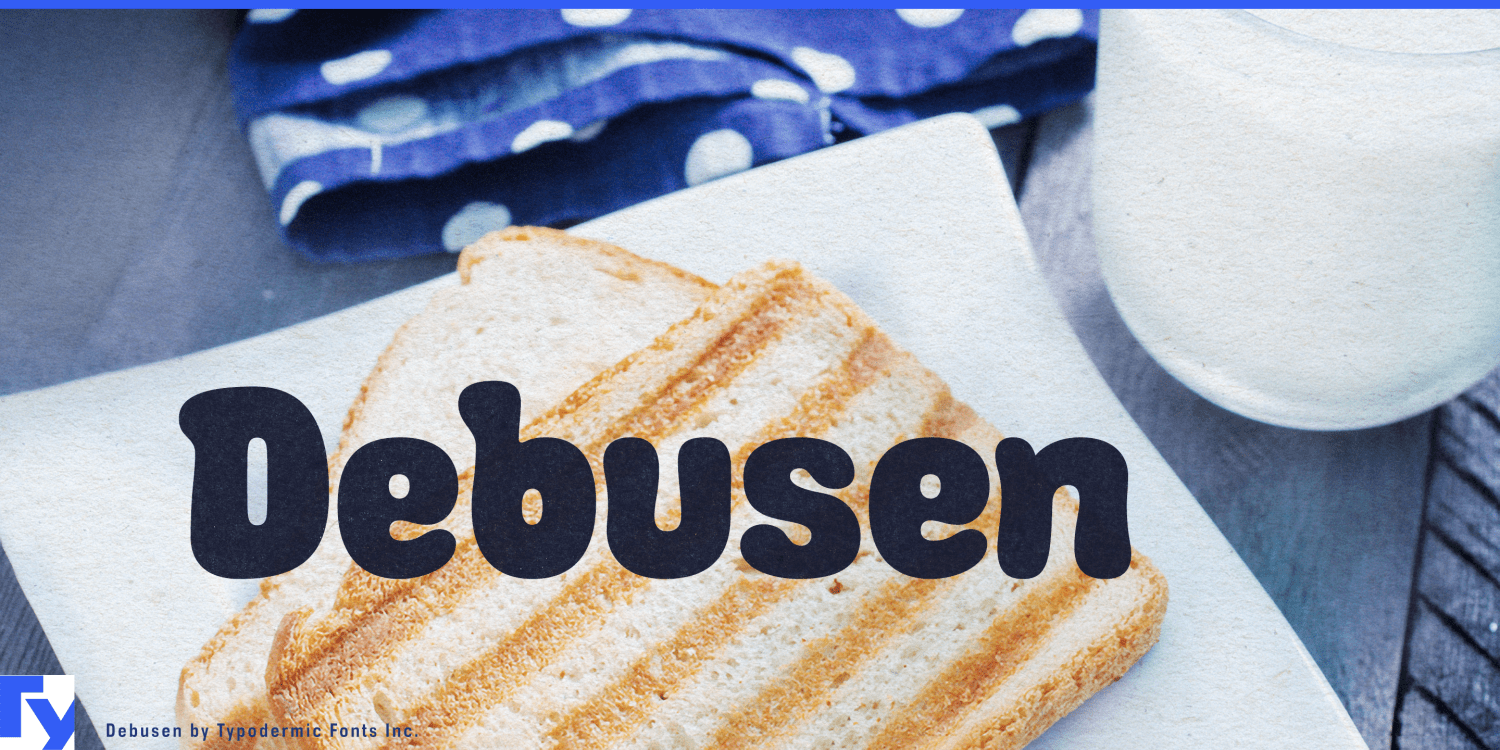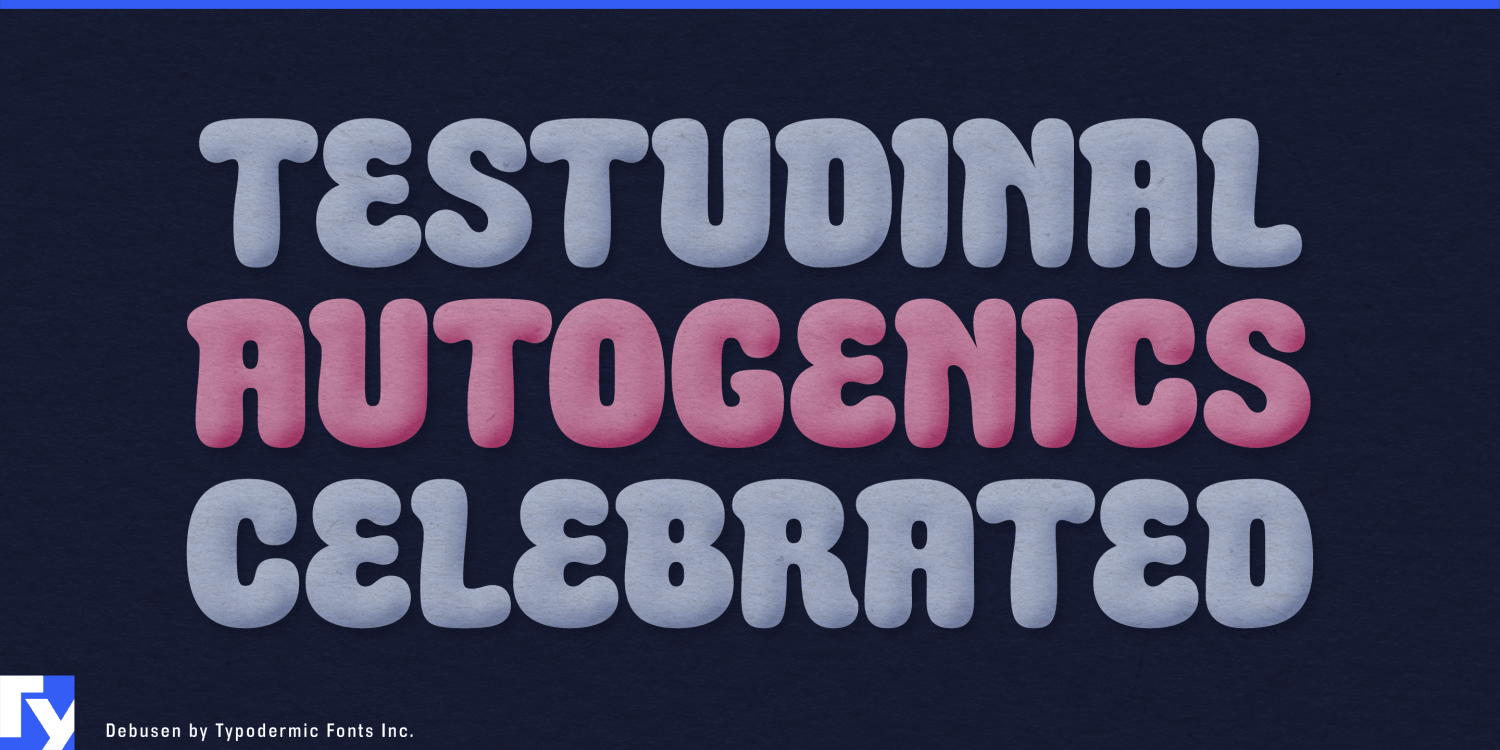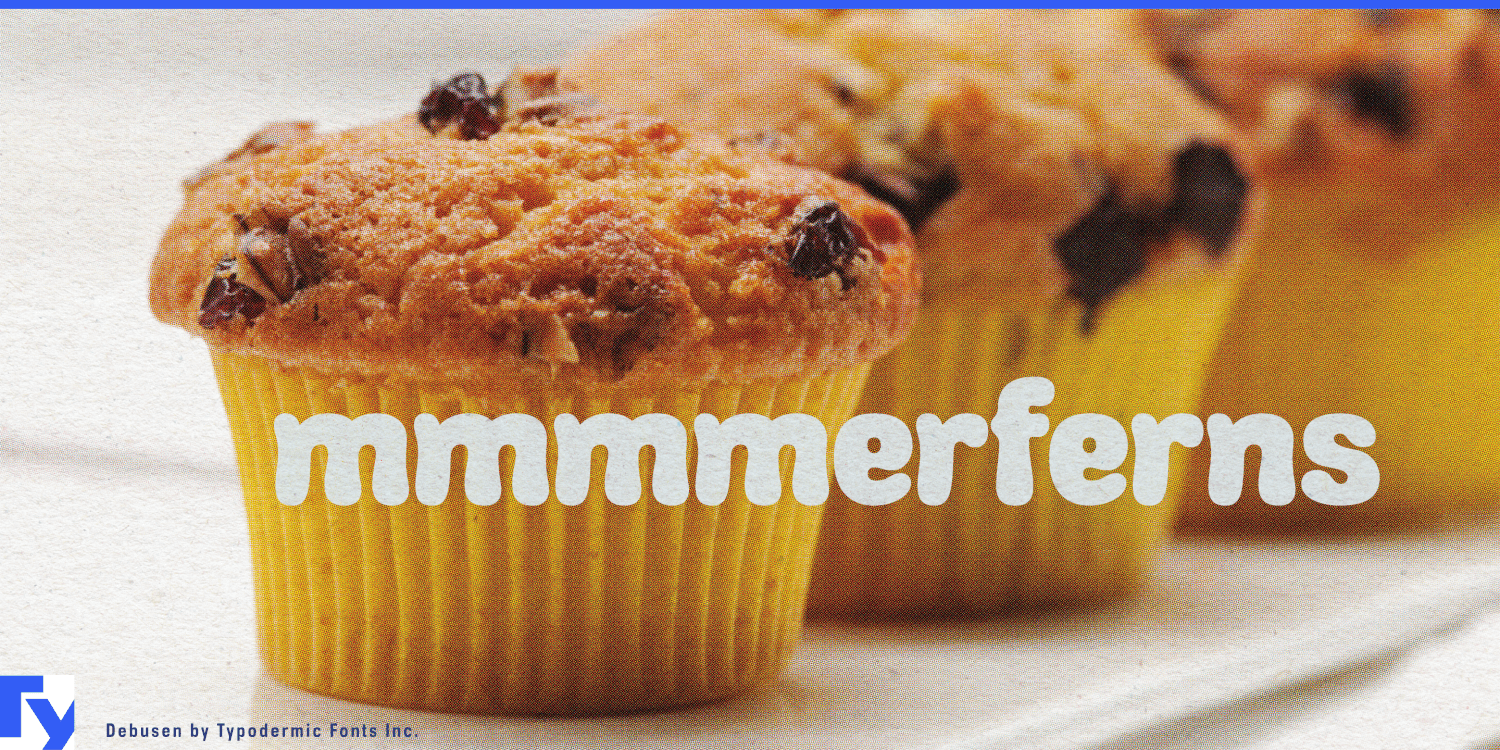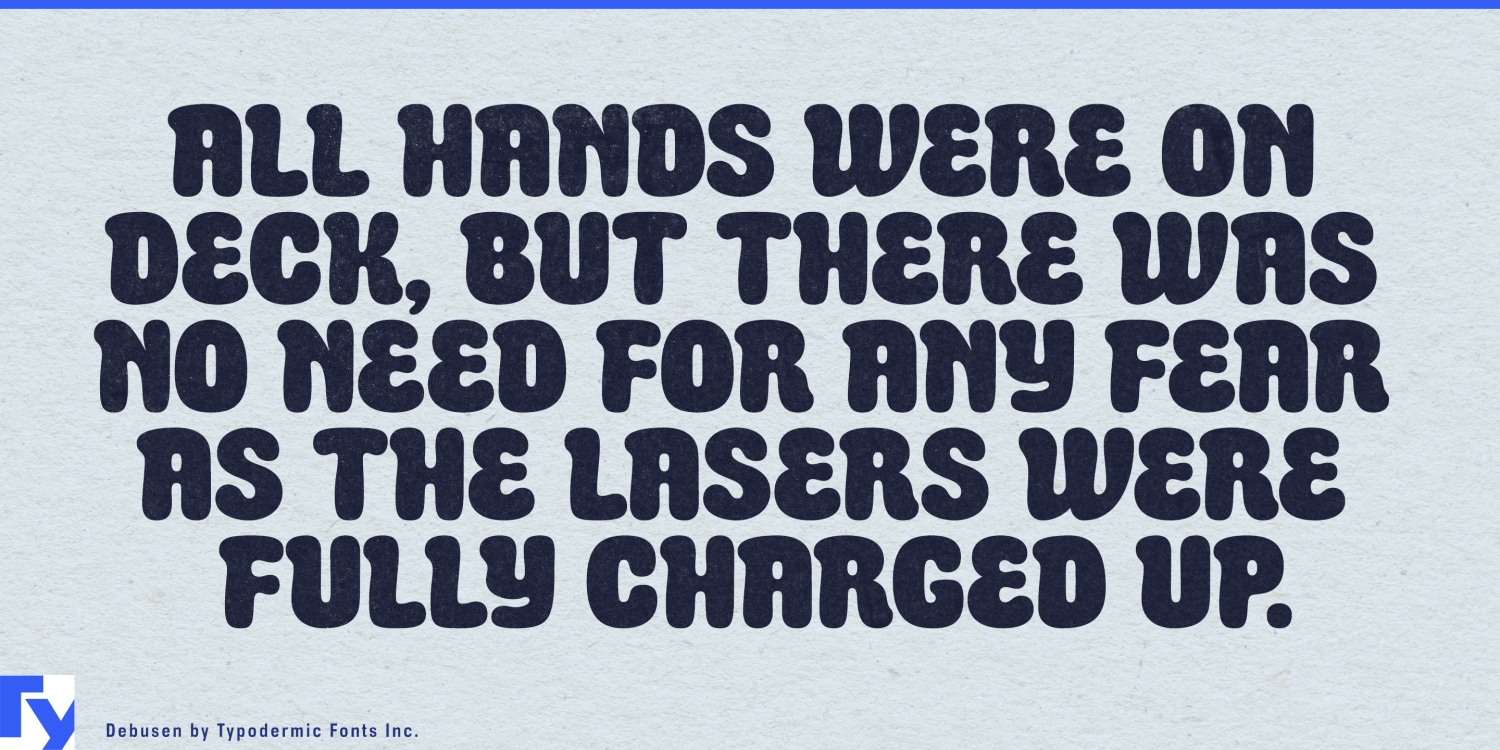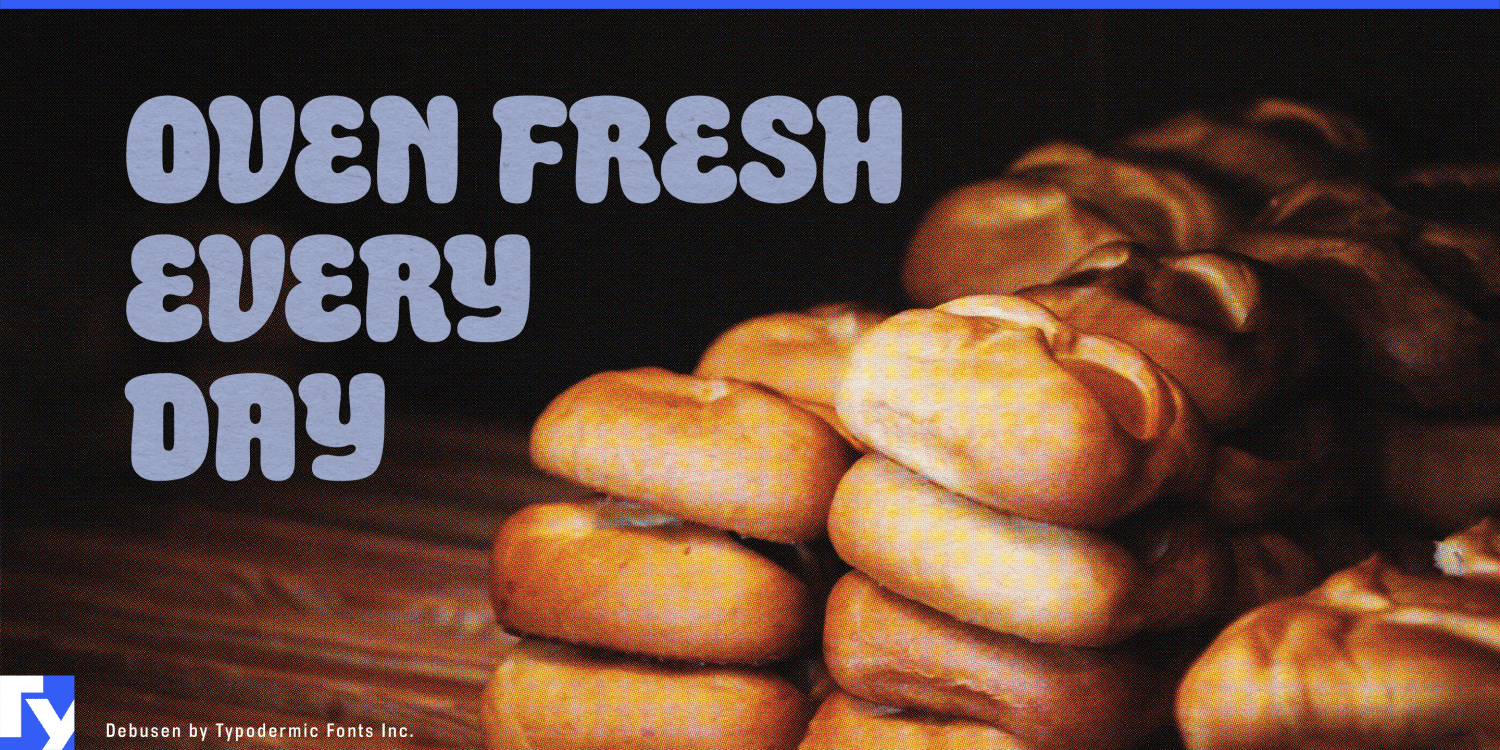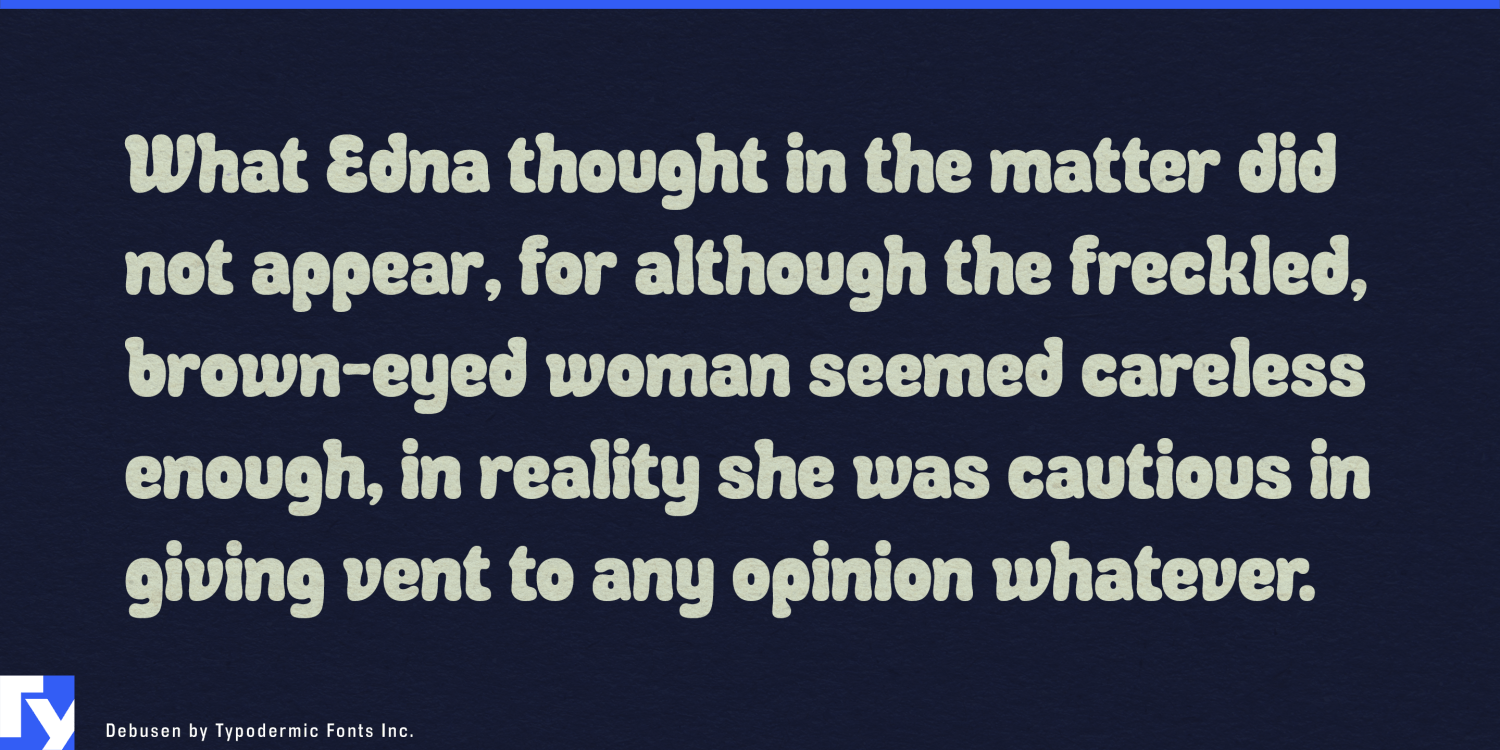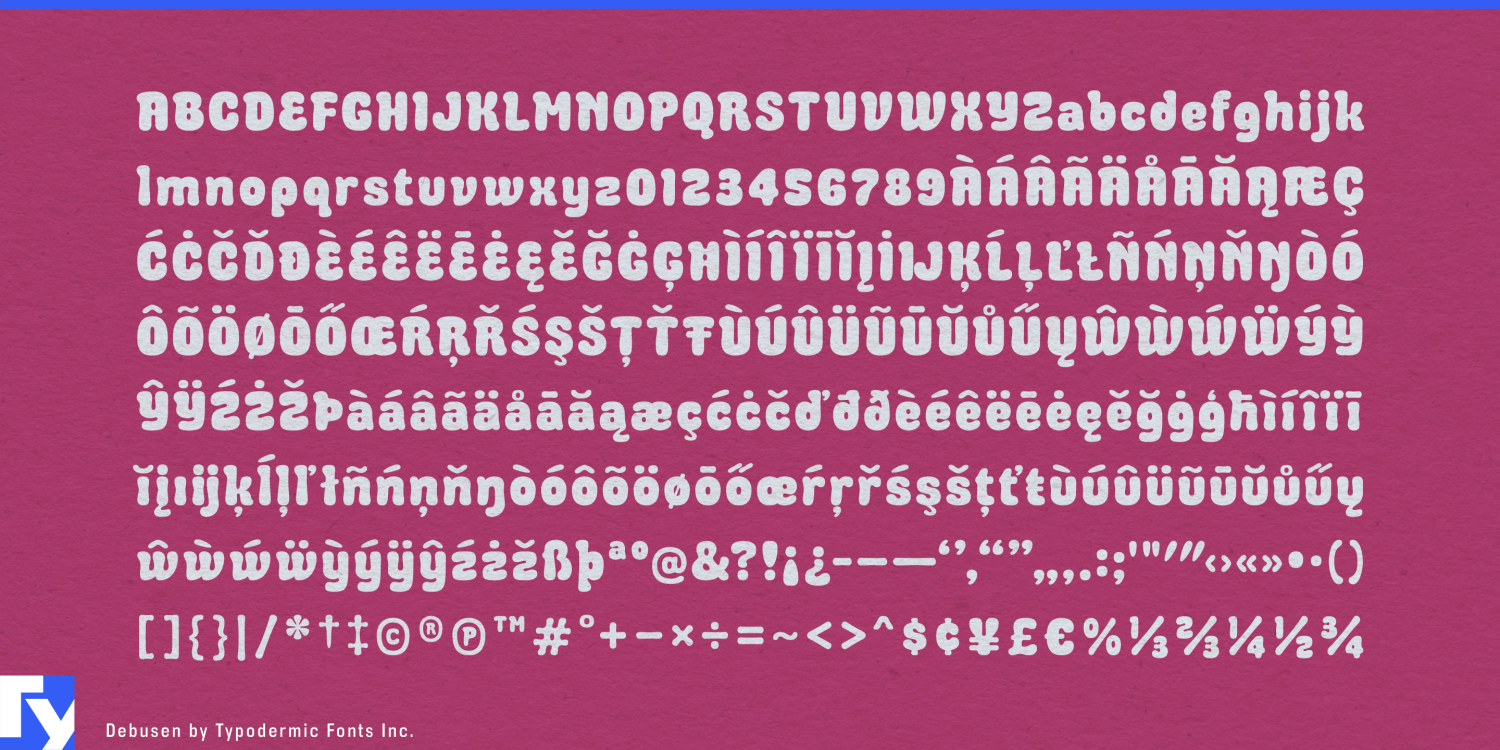
Debusen
Font Family by Typodermic
Debusen: Where softness meets sophistication in type design. This charming typeface, with its gently rounded edges and plump letterforms, brings a touch of warmth and approachability to any project. Imagine your words wrapped in a cozy embrace, inviting readers to linger and engage with your message.
Debusen’s versatility shines across a spectrum of applications. From crafting inviting logos that exude comfort to designing children’s books that spark imagination, this typeface infuses your work with a subtle playfulness. Its tender expressiveness makes it equally at home in brand identities seeking to convey trust and accessibility or in digital interfaces aiming for a user-friendly feel. But don’t mistake Debusen’s softness for simplicity. This typeface is a sophisticated tool in the hands of discerning designers. Its carefully crafted curves and balanced proportions ensure legibility while maintaining its distinctive character. The result is a typeface that communicates effectively without sacrificing its charming personality.
Debusen’s language support is as welcoming as its rounded forms. It speaks fluently in most Latin-based European writing systems—from the melodic flow of Italian to the crisp consonants of German. This linguistic versatility ensures your designs can resonate across a wide swath of Western and Central Europe, embracing a diverse audience with its gentle touch.
In a world often filled with harsh edges and bold statements, Debusen offers a refreshing alternative. It’s the typographic equivalent of a warm hug—comforting, yet refined. Whether you’re a seasoned designer or just beginning to explore the world of typography, Debusen provides the tools to create designs that are both visually appealing and emotionally resonant.
Embrace the power of gentle persuasion. Let Debusen be the secret ingredient that adds a dash of tenderness to your typographic recipe, creating designs that not only catch the eye but also touch the heart.